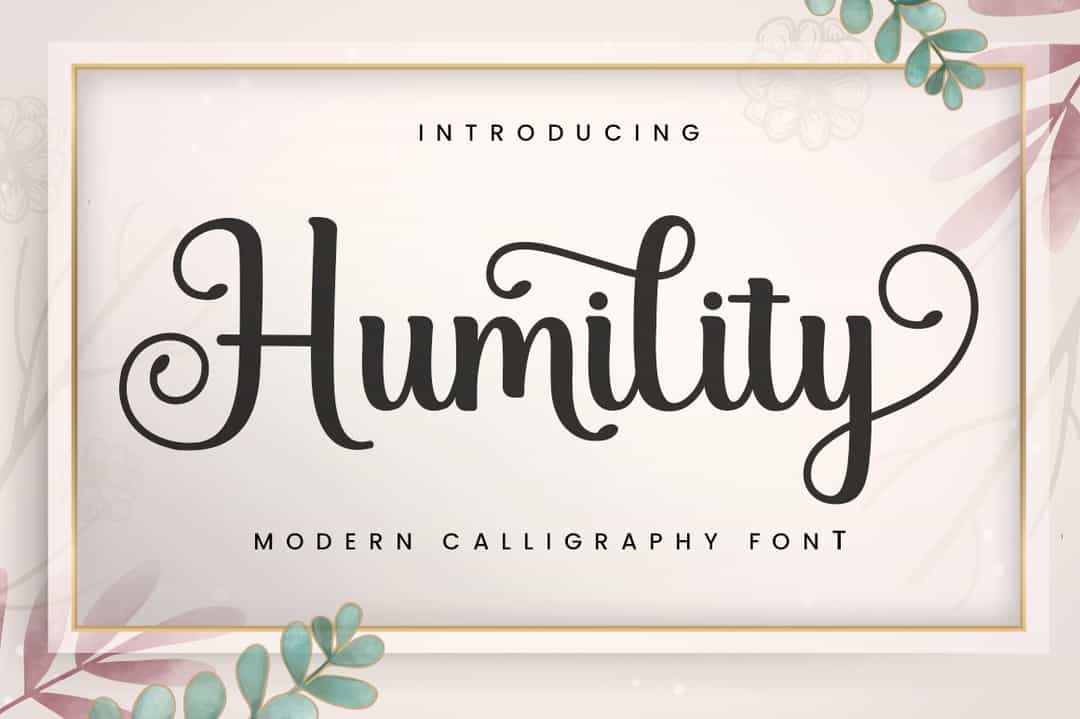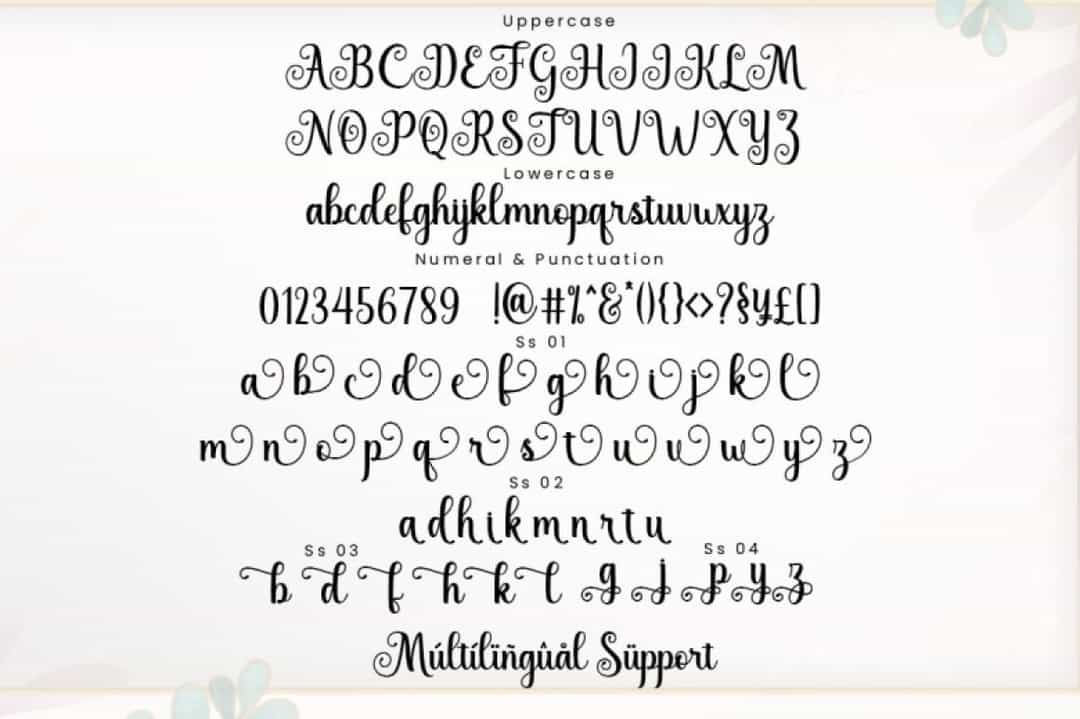
Humility is a contemporary script designed for elegant wedding invitations, logo types and boutique logos or business card requirements. Additionally, there are alternatives with simple flourishes but more elegant aesthetic that can add visual interest and make your designs more desirable.